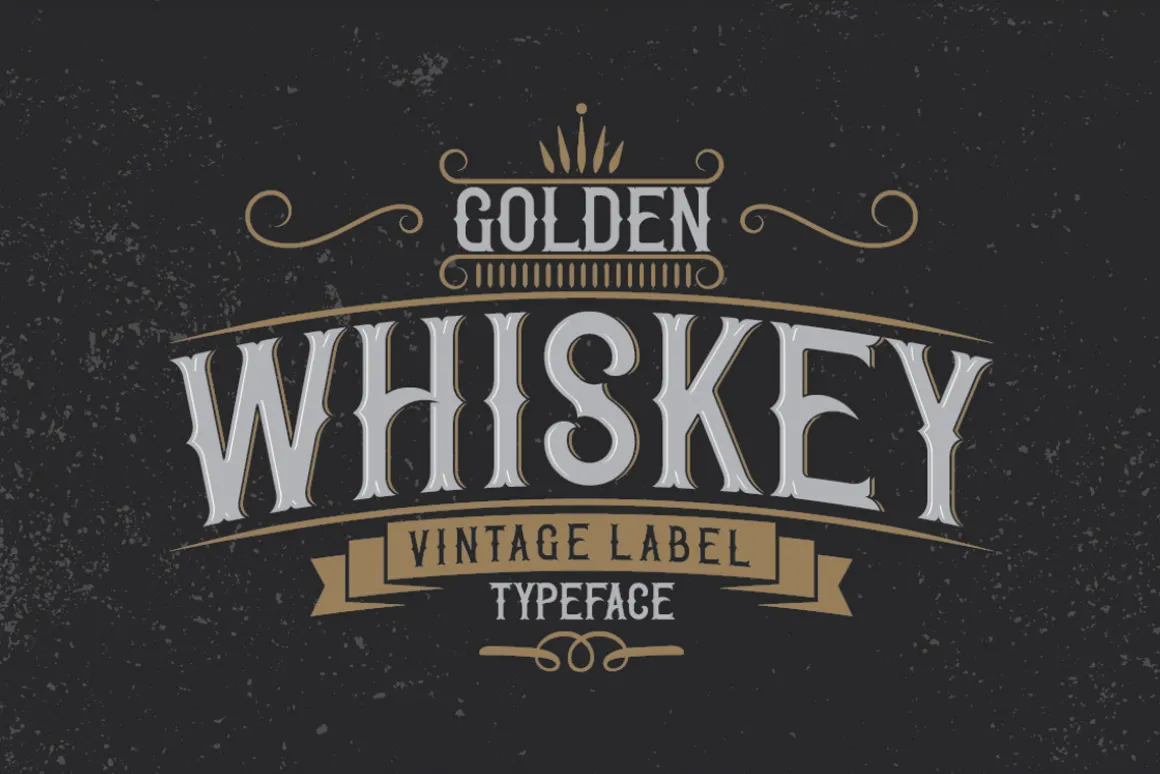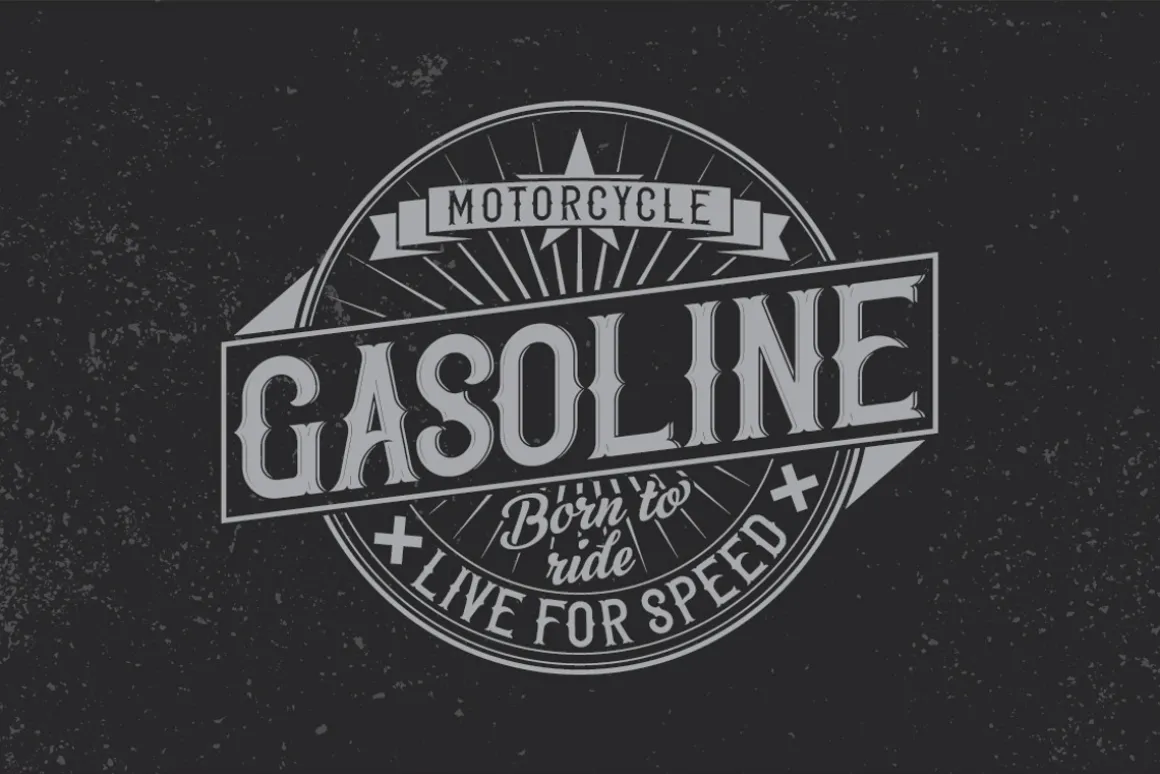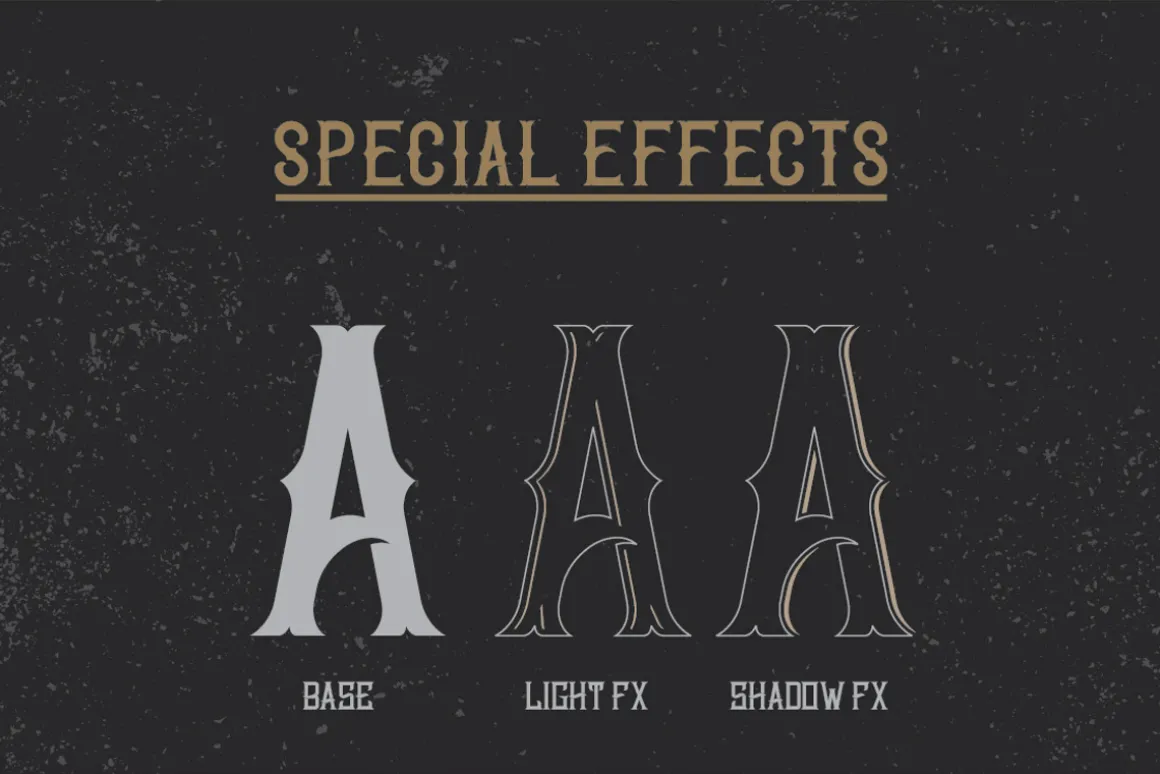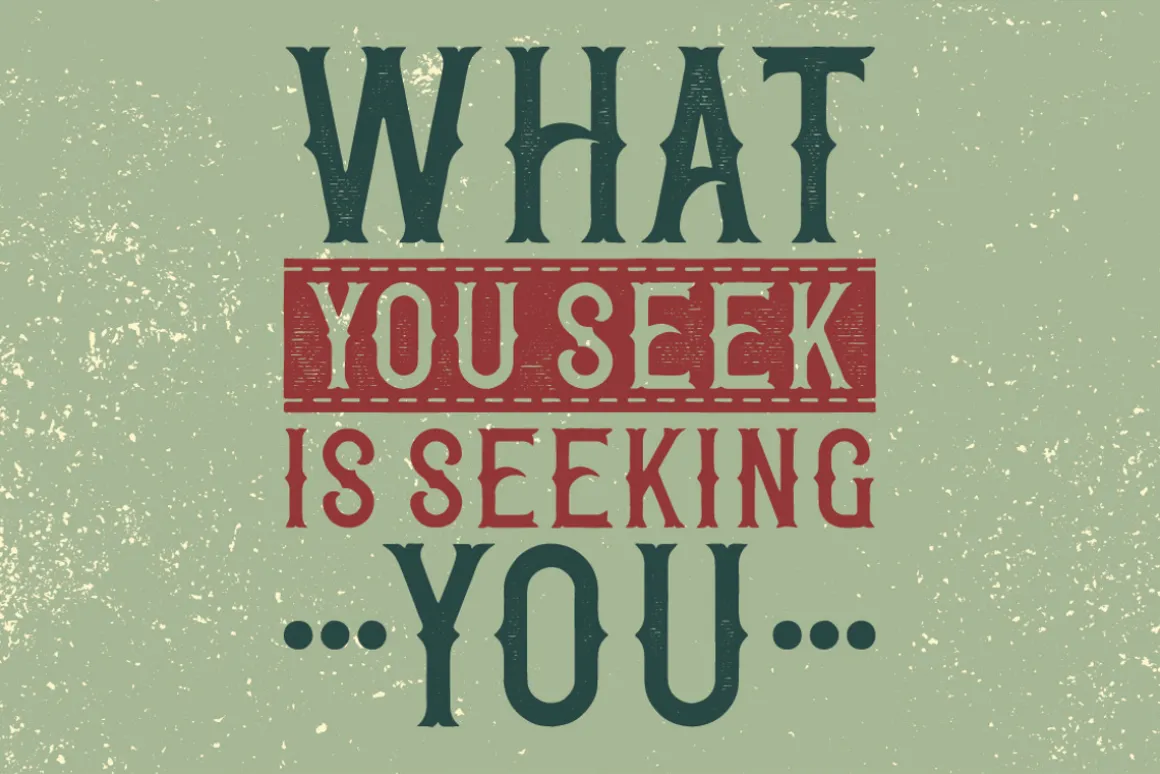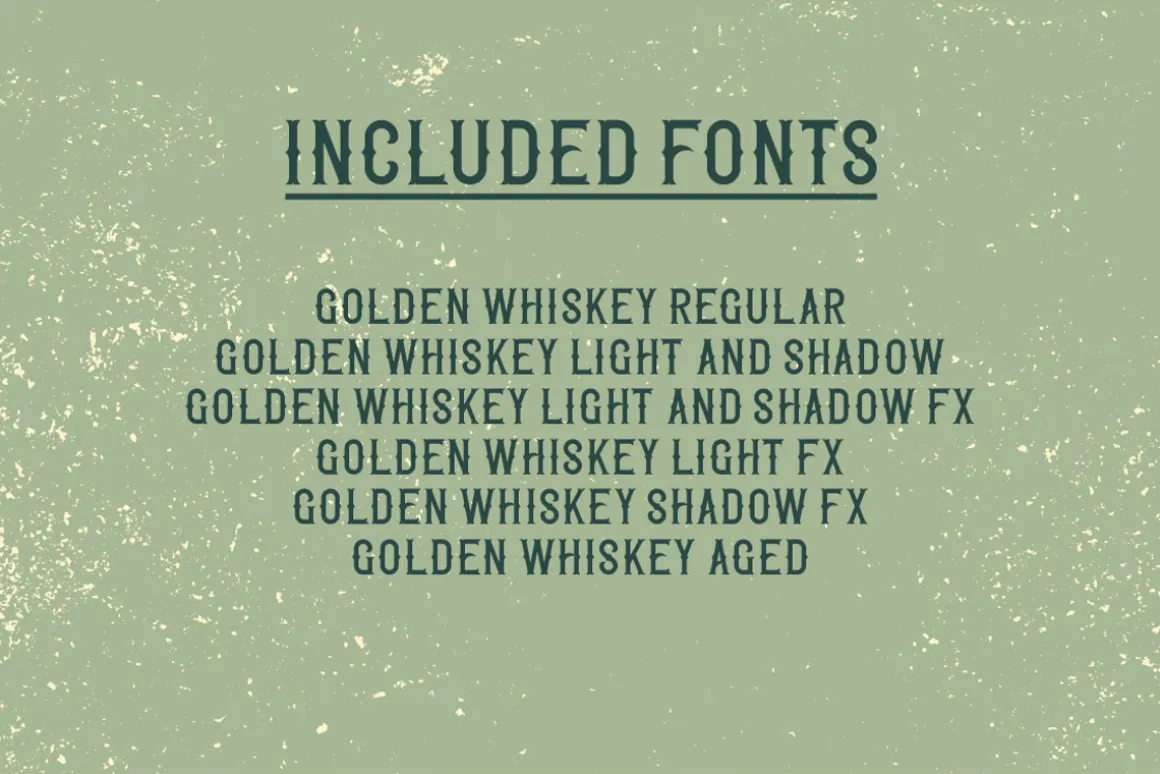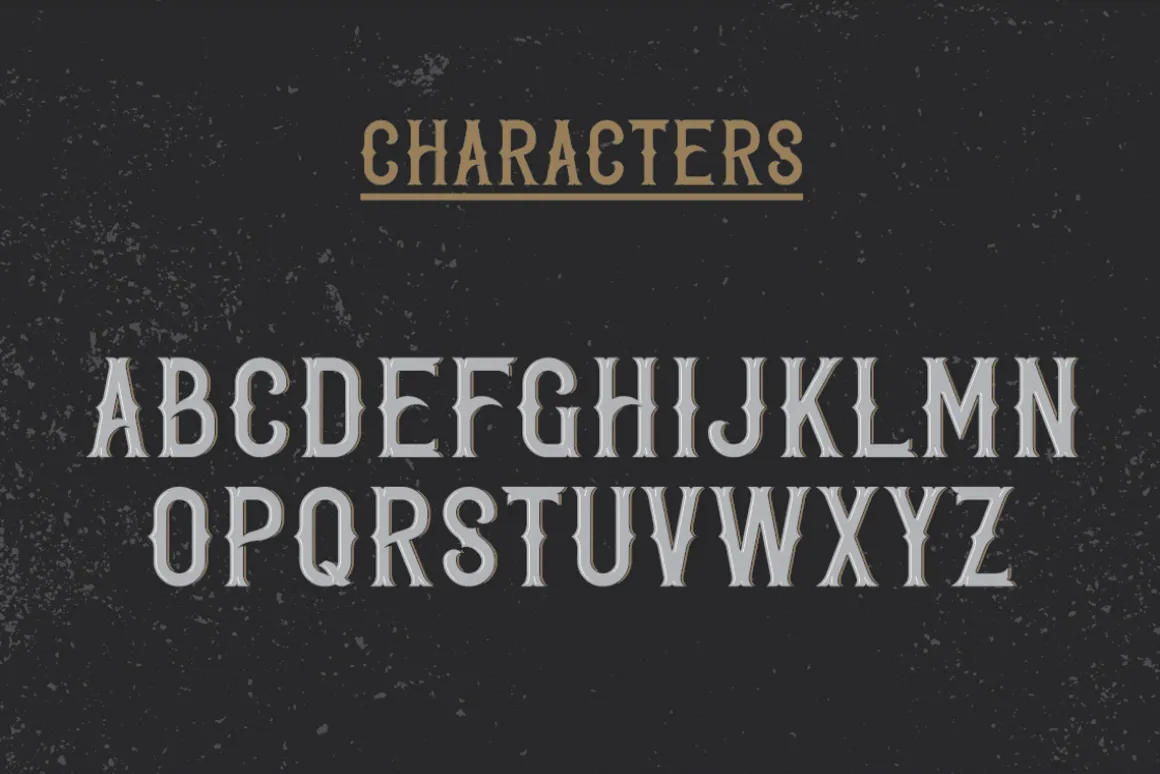
Introducing a vintage look label typeface named “Golden Whiskey”. It’s made in strong and vintage label style. Typeface is good viewed on any labels design.
- 5 fonts in complect with special effects, plus aged version
- You can mix light, texture and shadow effects (look at 4-th screenshot)